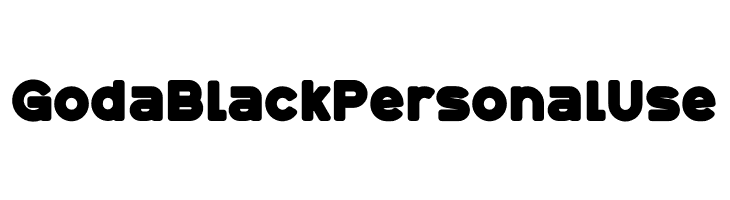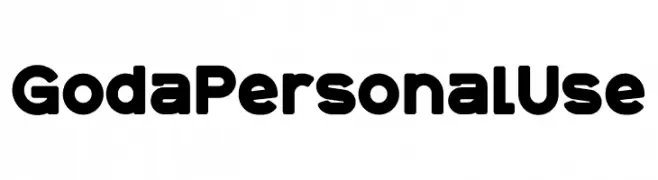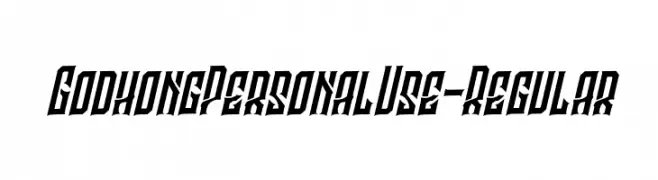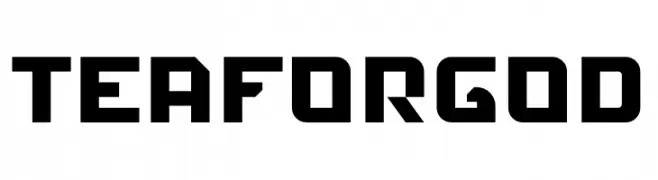
A bold, geometric font with a futuristic and industrial style.
A bold, angular font with a dynamic, modern-retro style.
A bold, angular font inspired by ancient runic inscriptions.
A sophisticated, elegant handwritten font with fluid, continuous strokes.
A bold, modern font with rounded edges and a geometric influence.
A bold, rounded font with a modern and playful style.
A dynamic brush-style font with expressive, fluid strokes.
A dynamic, cursive script font with fluid strokes and high contrast.
A bold, angular font with a geometric and modern design.
A lively and expressive handwritten font with fluid, connected letterforms.